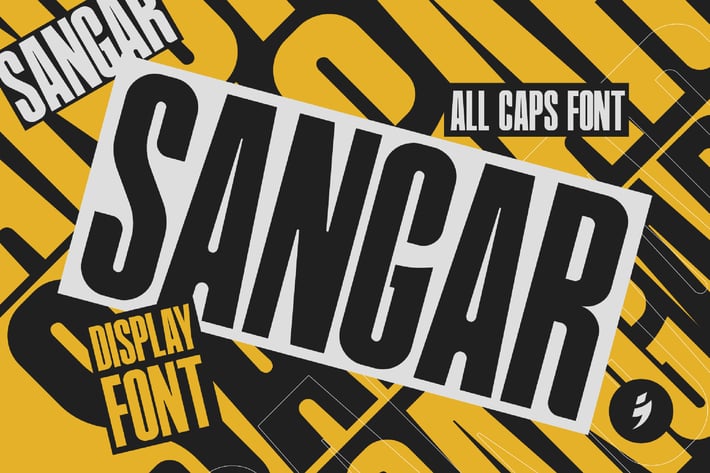
Sangar - Sporty Display Font
niskala_std
SANGAR is an awesome sports font with wide italic fonts, modern cutouts, and a dynamic slant. Ideal for sports titles, Football matches, game logos, and monograms or other modern dynamic text. Sangar compares favorably with legibility and size, creating the effect of power.check it out and grab it right away.